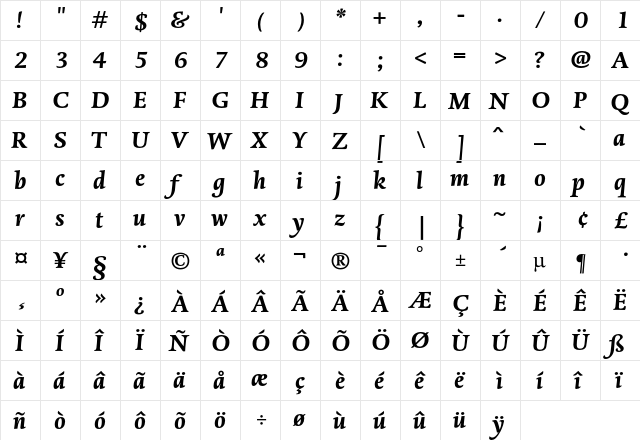
DTL Dorian T Bold Italic Font Preview
Design Context for DTL Dorian Typeface
DTL Dorian offers clean, dependable letterforms without strong stylistic allegiance, making it a practical choice for designers who need flexibility. The dynamic lean of this cut emphasises speed and emphasis in any layout. The heavy weight commands attention and anchors typographic hierarchies.
Pro Tip: Try DTL Dorian for annotation and caption copy alongside an upright companion — the contrast in angle creates a dynamic but ordered typographic system.